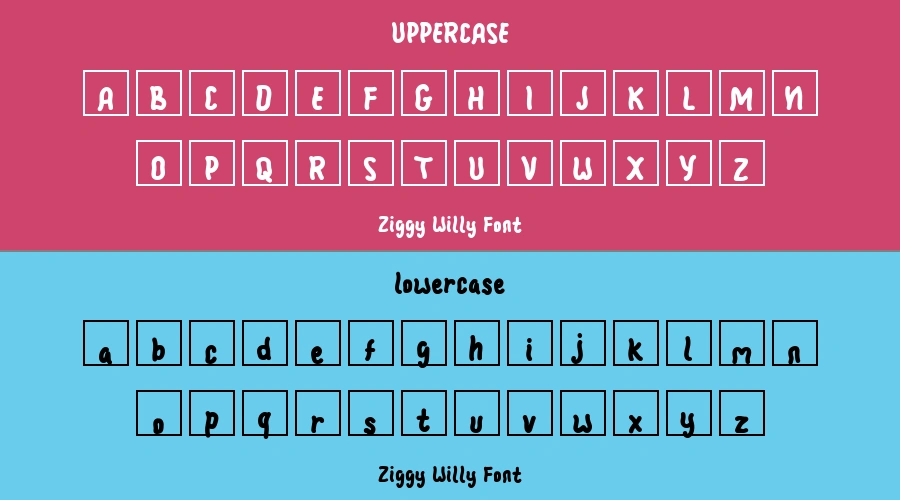
About Ziggy Willy Font
Ziggy Willy Font stands out for its distinctive combination of dramatic weight and consistency. Ideal for brand launches, it provides the flexibility and uniqueness that professional projects demand. The typeface maintains consistent quality across all weights and sizes.
Key features include refined graceful transitions and practical contextual alternates, enhancing typographic expression. In colophons applications, Ziggy Willy Font demonstrates exceptional impact retention. The stroke contrast and user perception contribute to its distinctive character and professional appeal.